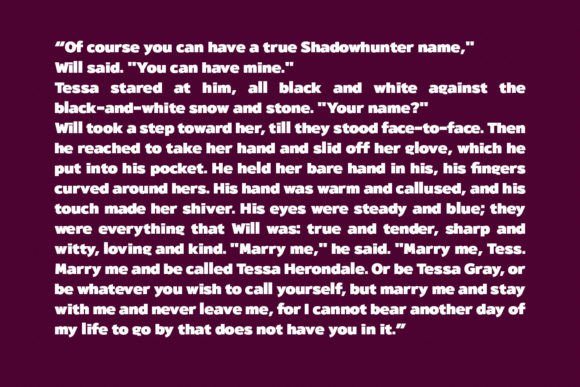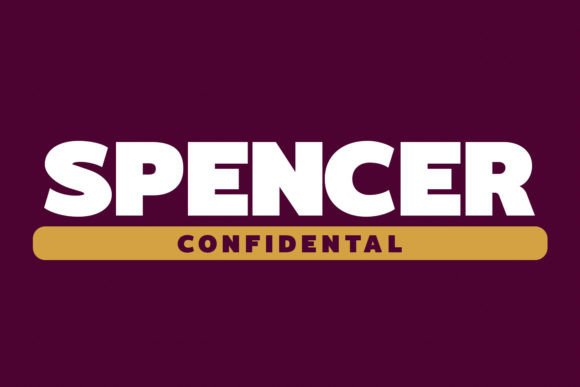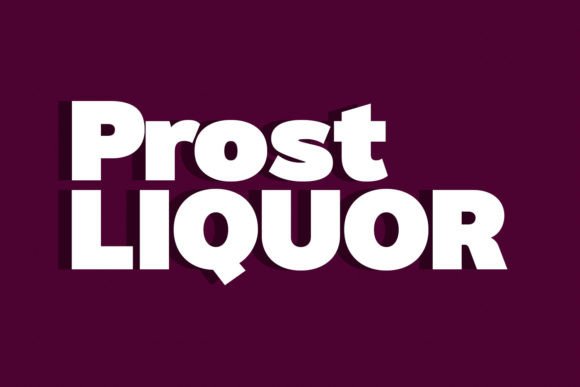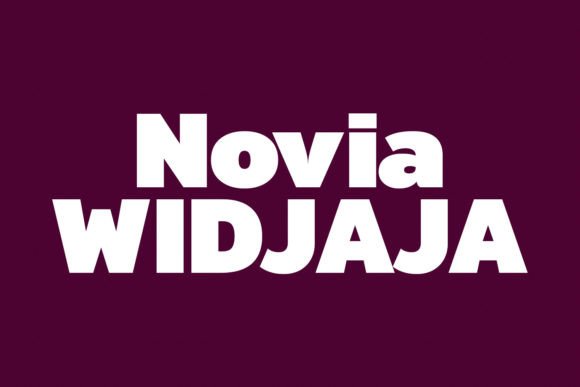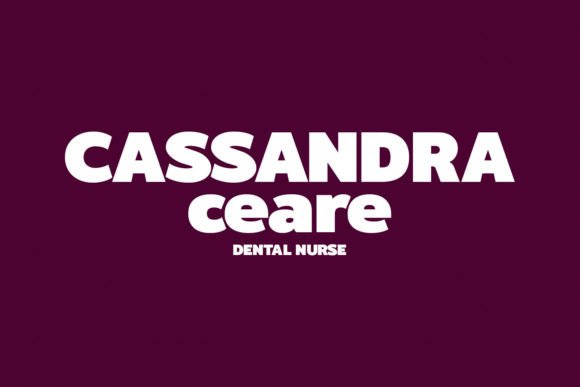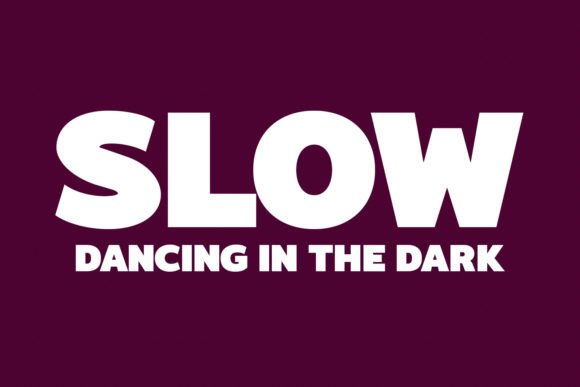
Introduction to Hugein Font
Have you ever been working on a creative project, pouring your heart and soul into every detail, and suddenly, the perfect font just isn’t there? It’s that moment when the whole design falls flat, and you feel like you’re missing the one piece that could elevate your entire project. For designers, finding the right font can be a game-changer, and that’s exactly where the Hugein Font comes in.
As a modern and bold sans serif font, Hugein Font is the perfect addition to any design resource. With its cool and energetic personality, it’s sure to bring a touch of sophistication and style to your high-quality designs. Whether you’re working on a project with a transparent background or need a font that can stand out from the crowd, Hugein Font is the perfect choice.
Key Features of Hugein Font
- Comes with a transparent background, allowing for easy customization
- Includes 7 font styles, with each style available in 6 different sizes, ranging from 12 to 72 points
- Features a high-resolution design, with a resolution of 300 DPI for crisp and clear typography
- Perfect for use in a variety of creative projects, including logos, branding materials, and digital graphics
Honest Review: Hugein Font
I recently had the chance to work with Hugein Font for a creative project, and I must say it’s been a game-changer. As a designer, I’m always on the lookout for high-quality design resources that can elevate my work. Hugein Font definitely fits the bill.
- ✨ Hugein Font offers a range of stylish and modern designs that are perfect for creative projects.
- ✨ The transparent background makes it easy to layer and composite the font with other design elements.
- ⚠️ The font is a bit limited in terms of character sets, which may not be suitable for projects that require extensive text.
- ⚠️ Some users may find the font’s style a bit too bold or overpowering, depending on their design aesthetic.
Overall, I’m impressed with Hugein Font and would definitely recommend it to designers looking for a high-quality, free design resource. With a little creativity, Hugein Font can be a great addition to any design project.
Use the Hugein Font on a transparent background to create a striking visual effect.
Combine the Hugein Font with other design elements, such as graphics or images, to create a cohesive design.
Experiment with different font sizes and styles to create a unique visual identity for your project.
Common Use Cases for Hugein Font
The Hugein Font is suitable for a variety of creative projects, including:
Graphic design
Web design
Print design
Branding and marketing materials